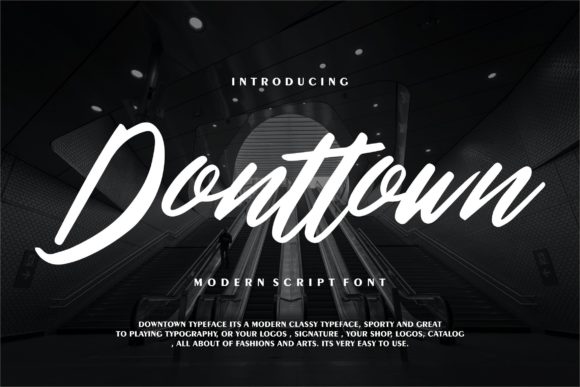
Donttown Font: The Perfect Script Font for Romantic Designs
Are you a designer or crafter looking for a font that can add a touch of romance and elegance to your designs? Look no further than Donttown Font! This beautiful script font is well-balanced, delicate, and perfect for creating stunning wedding invitations, cards, and other designs that require a personal touch.
What Makes Donttown Font Special?
Donttown Font is a unique and charming script font that is sure to capture the hearts of designers and crafters alike. Its dainty and joyful appearance makes it ideal for creating romantic and personalized designs that will leave a lasting impression. Whether you’re designing wedding invitations, greeting cards, or other special occasion designs, Donttown Font is the perfect choice.
Key Features of Donttown Font
- Well-balanced and delicate: Donttown Font is carefully crafted to ensure that it is well-balanced and delicate, making it perfect for creating elegant and sophisticated designs.
- Dainty and joyful: The font’s dainty and joyful appearance makes it ideal for creating romantic and personalized designs that will capture the hearts of your audience.
- Script font: Donttown Font is a script font that is perfect for creating flowing and elegant designs that will add a touch of sophistication to your projects.
- Romantic and personalized: The font’s romantic and personalized appearance makes it perfect for creating wedding invitations, cards, and other special occasion designs.
Uses of Donttown Font
Donttown Font is a versatile font that can be used for a variety of design projects, including:
- Wedding invitations: The font’s romantic and elegant appearance makes it perfect for creating stunning wedding invitations that will set the tone for the big day.
- Greeting cards: Donttown Font is ideal for creating beautiful and personalized greeting cards for special occasions such as birthdays, anniversaries, and holidays.
- Designs that require a personal touch: The font’s delicate and joyful appearance makes it perfect for creating designs that require a personal touch, such as party invitations, thank-you cards, and other special occasion designs.
Why Designers and Crafters Love Donttown Font
Designers and crafters love Donttown Font for its unique and charming appearance. The font’s well-balanced and delicate design makes it easy to read and understand, while its dainty and joyful appearance adds a touch of romance and elegance to any design. Additionally, the font’s versatility makes it perfect for a variety of design projects, from wedding invitations to greeting cards and other special occasion designs.
Tips for Using Donttown Font
Here are some tips for using Donttown Font in your design projects:
- Use it for headings and titles: Donttown Font is perfect for creating beautiful and elegant headings and titles that will add a touch of sophistication to your designs.
- Pair it with other fonts: The font pairs well with other fonts, making it perfect for creating stunning and unique designs.
- Experiment with different colors: Donttown Font looks great in a variety of colors, so don’t be afraid to experiment and find the perfect color for your design.
Donttown Font is a beautiful and charming script font that is perfect for designers and crafters looking to add a touch of romance and elegance to their designs. Its well-balanced and delicate design makes it easy to read and understand, while its dainty and joyful appearance adds a touch of sophistication to any design. Whether you’re designing wedding invitations, greeting cards, or other special occasion designs, Donttown Font is the perfect choice.